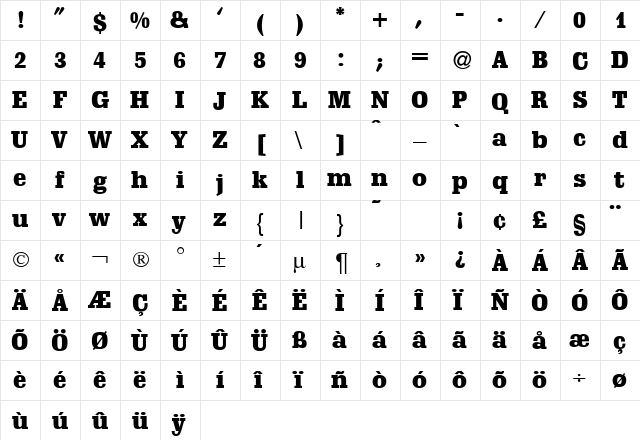
ScoutDB Normal
Design Context for ScoutDB Typeface
ScoutDB takes a measured approach to typography — its balanced proportions and neutral character make it a reliable workhorse for both digital and print work.